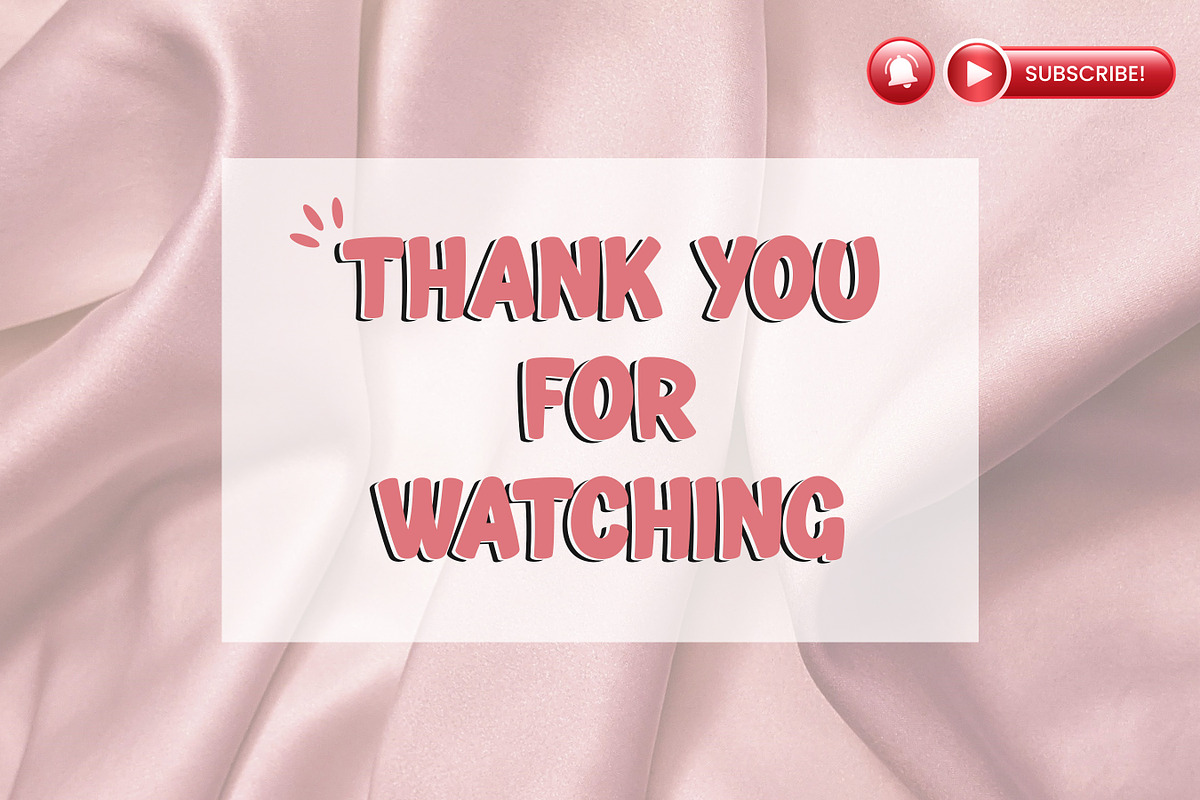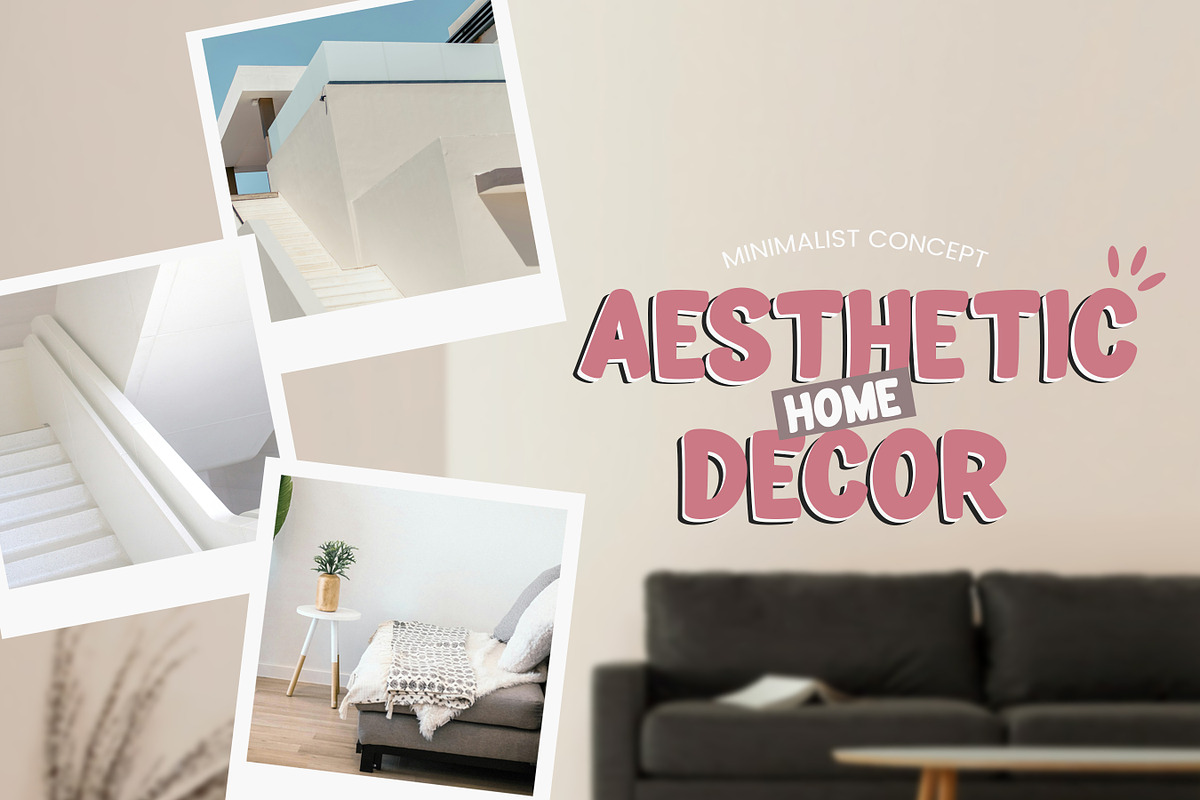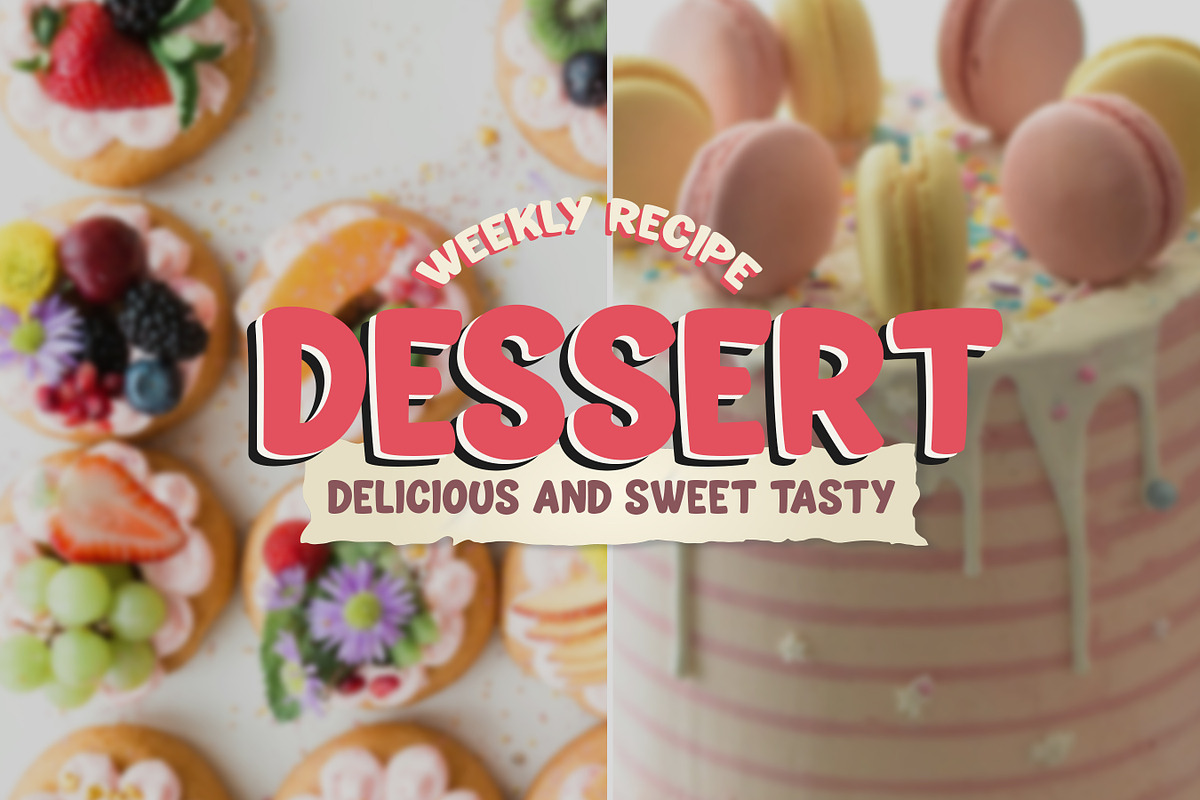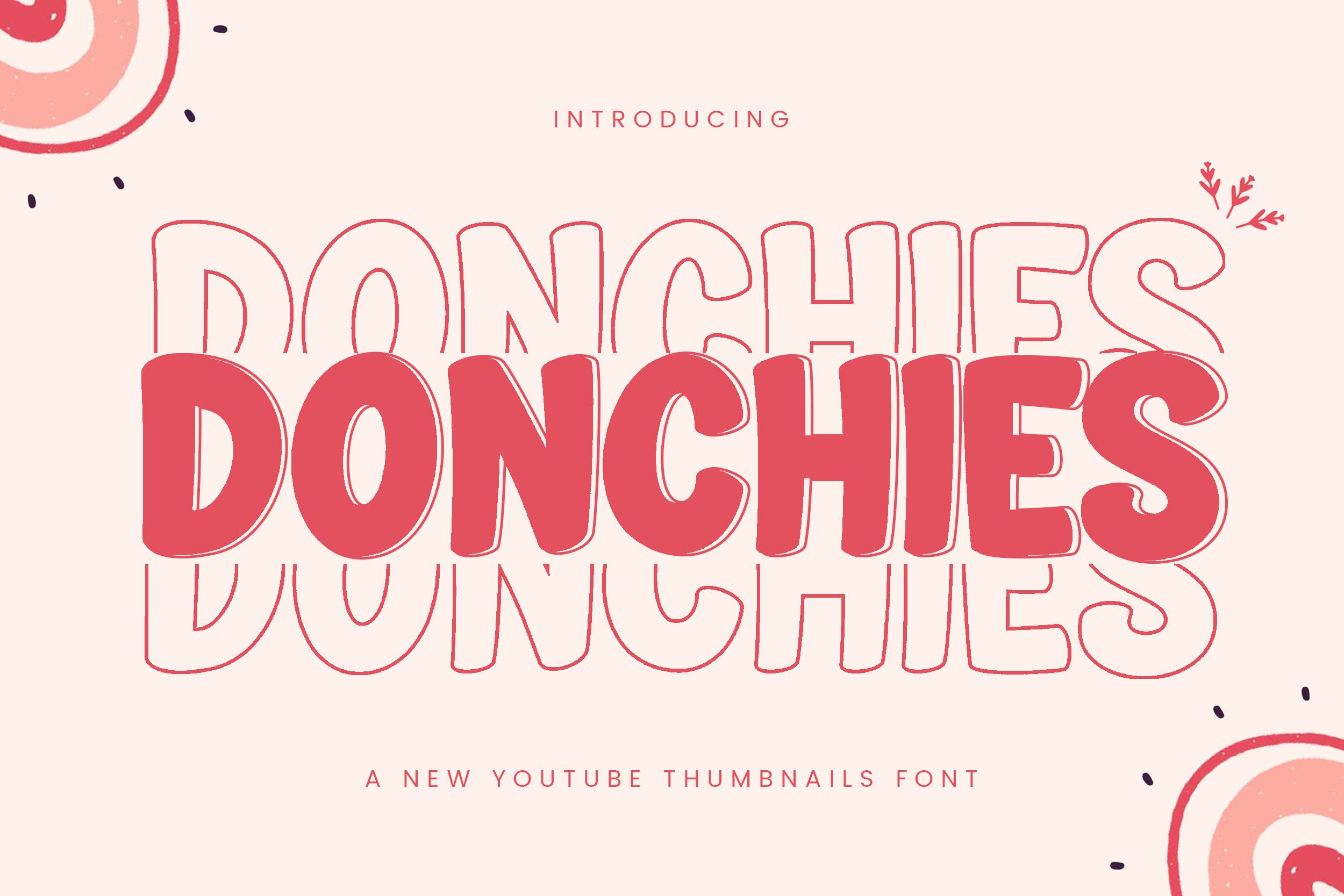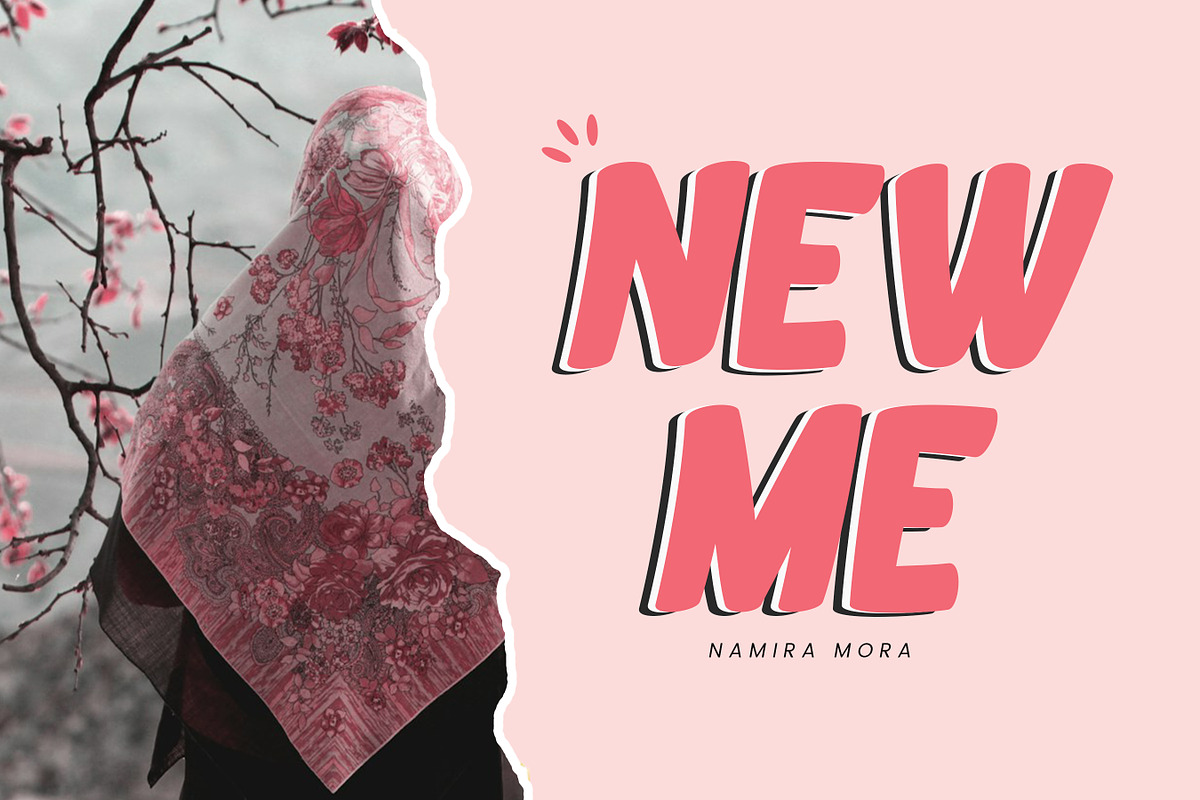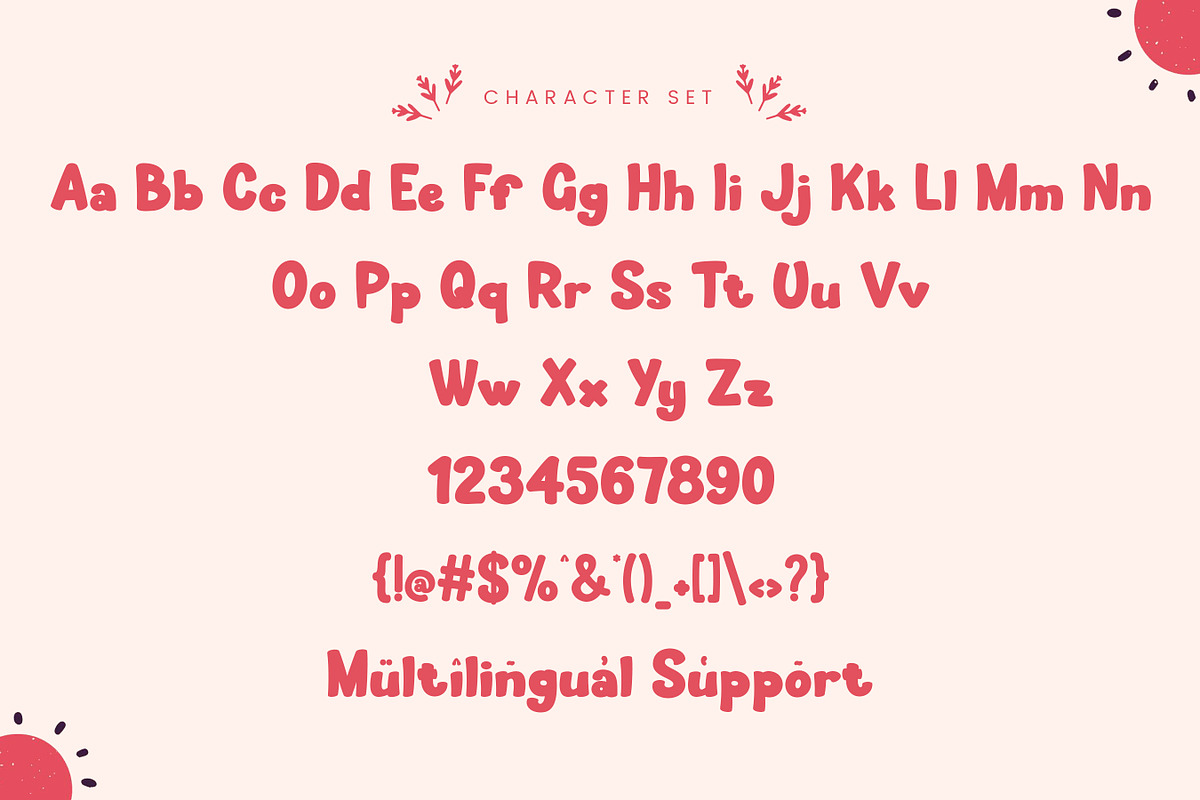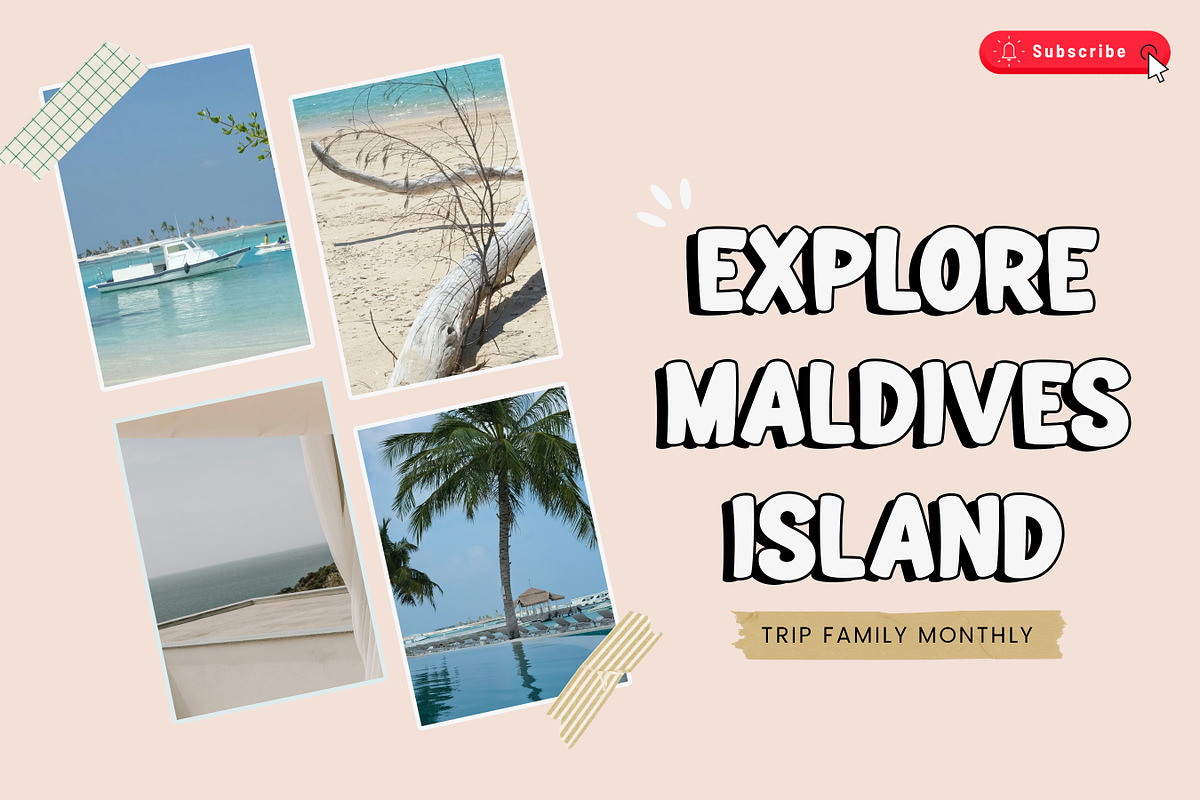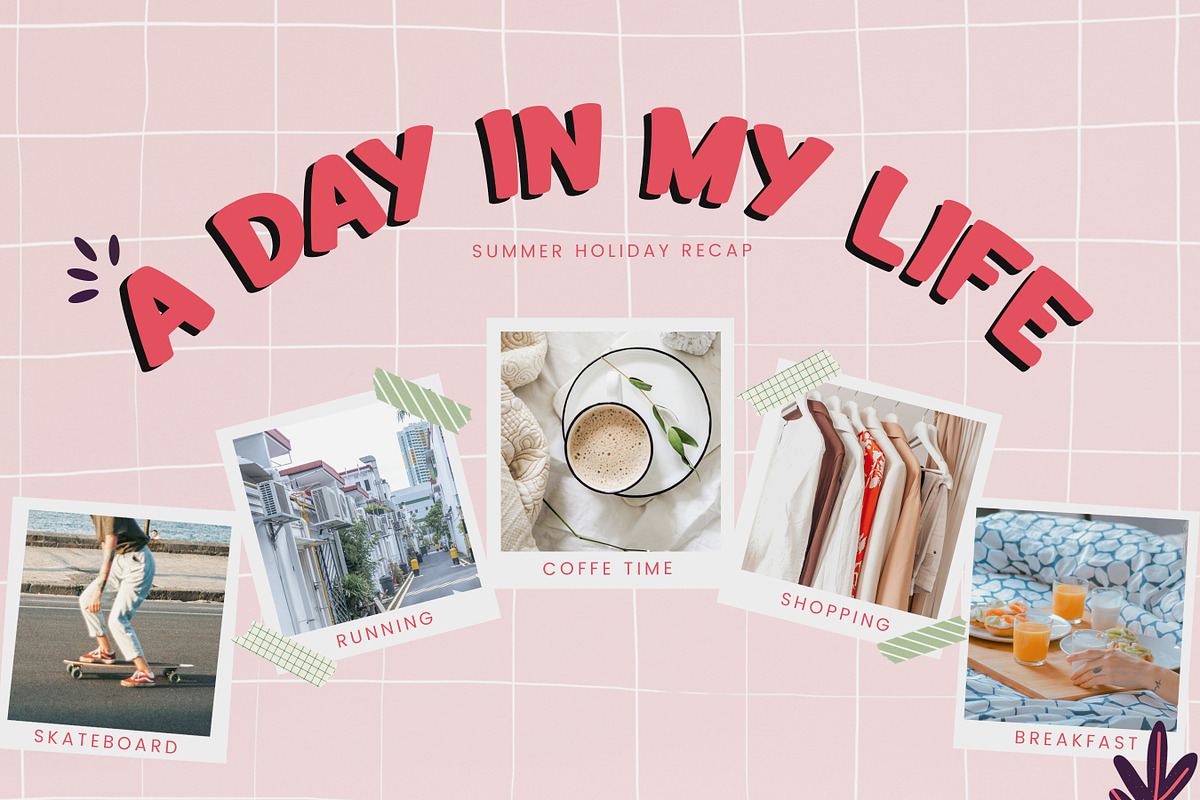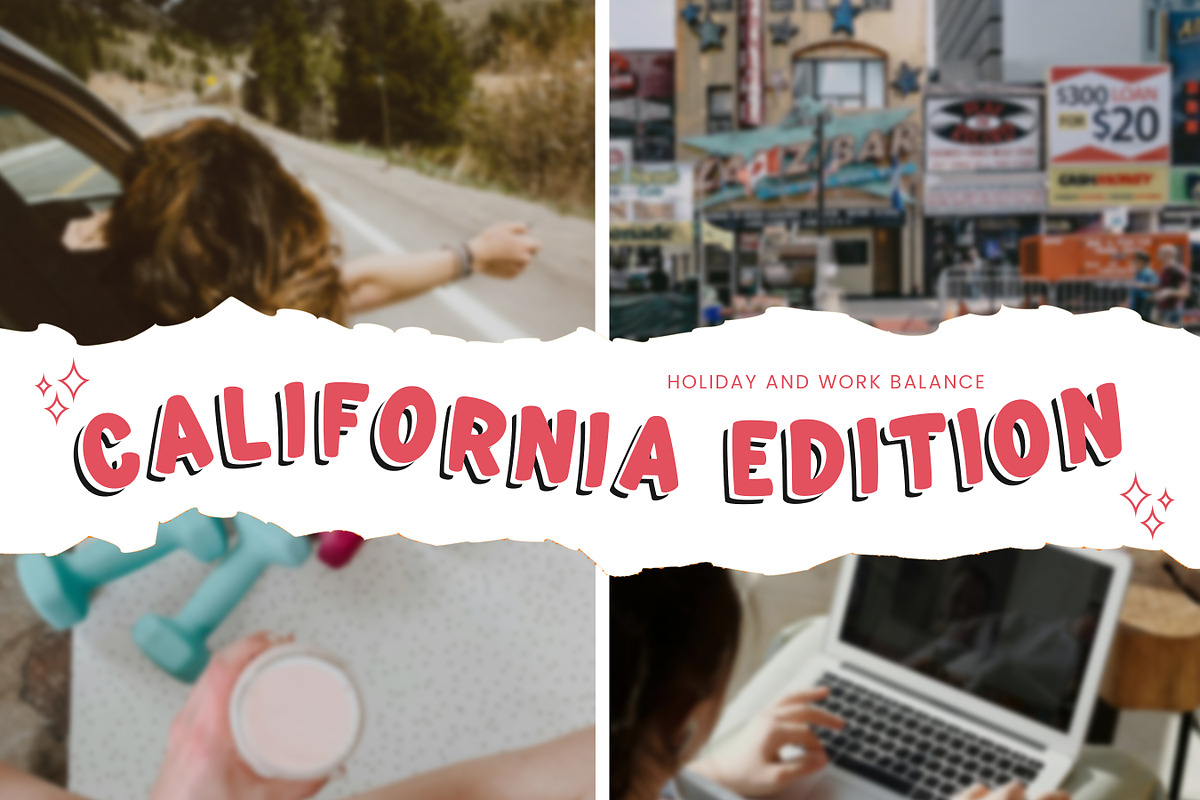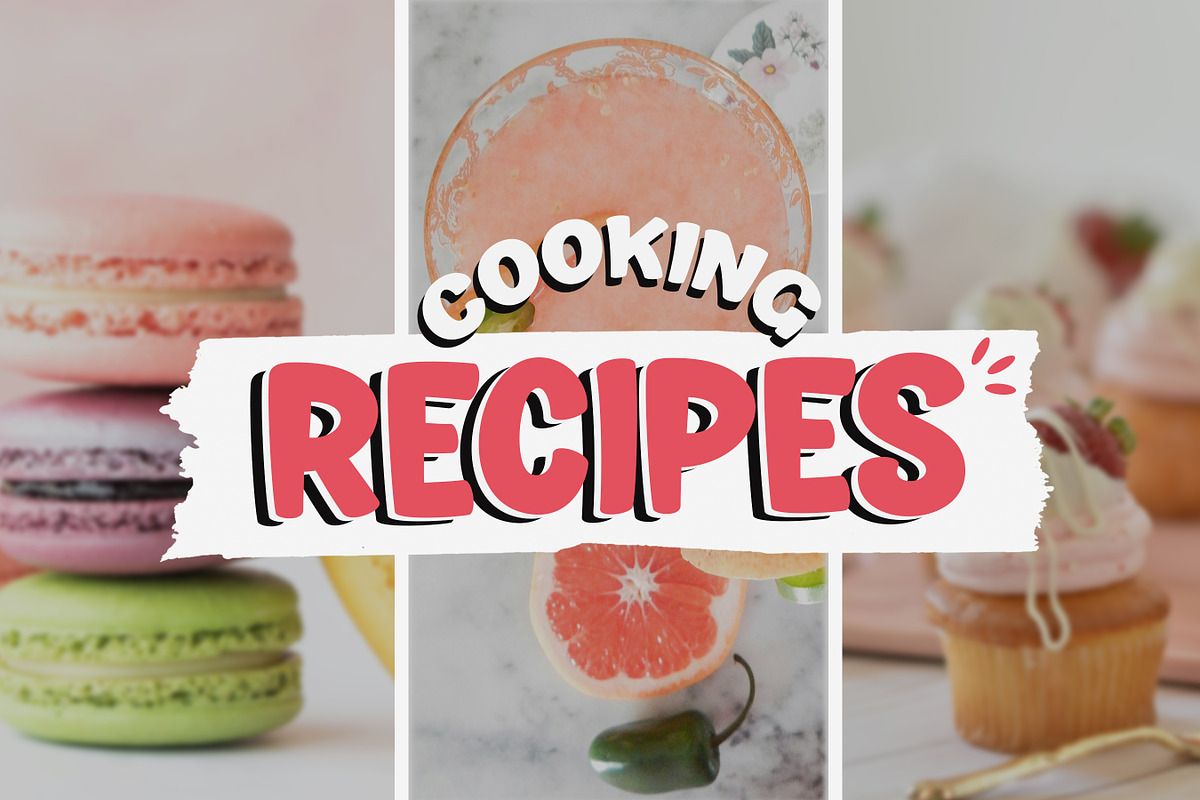
Donchies - Thumbnails Font
Introducing Donchies, a bold and captivating sans-serif font designed to make your YouTube thumbnails stand out from the crowd. With its clean lines and geometric structure, Donchies exudes a sense of modernism and professionalism, perfectly complementing a wide range of YouTube content. This font suitable for any graphic designs such as branding materials, Thumbnails YouTube, video content, photography, etc.
Multilingual Uppercase alphabet A-Z Lowercase alphabet a-z Numbers 0-9 Some punctuation